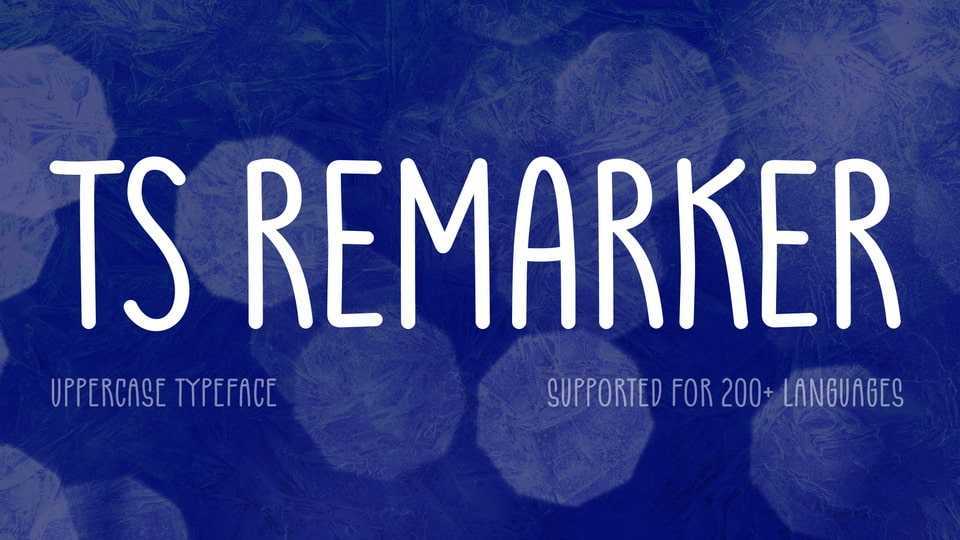
Download TS Remarker font, a handwritten typeface based on a simple felt-tip pen. The lines have minimal contrast and are not meant to be perfect. TS Remarker has a simple and uncomplicated design goes great with a happy holiday mood.
Designer: Vitaliy Tsygankov